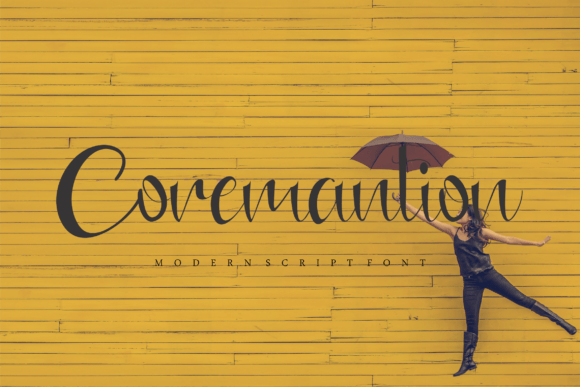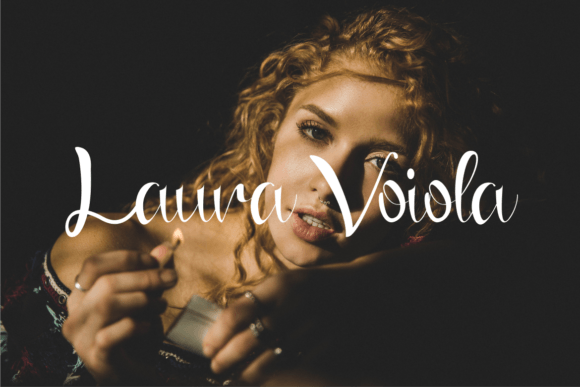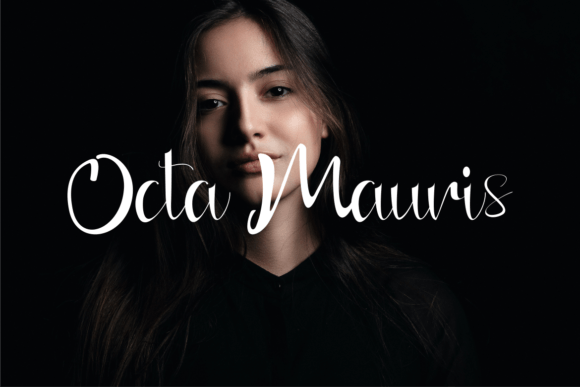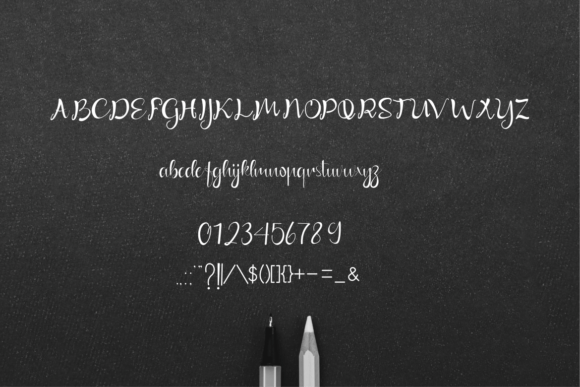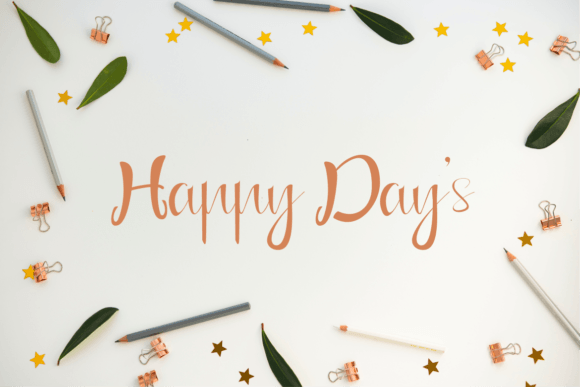
What Is Coremantion Font?
Coremantion Font is a modern handwritten script designed to bring a stylish, personal feel to any creative project. With smooth curves, clean strokes, and a contemporary look, this font effortlessly blends sophistication with approachability. Whether you’re designing something bold, minimal, or artistic, Coremantion delivers a polished finish that stands out.
Its fresh style makes it a versatile choice for designers who value clarity, elegance, and modern typography.
Coremantion is perfect for a wide range of creative applications. For example, it’s ideal for logos and brand identities. The handwritten style gives your brand an authentic, personable feel that resonates with audiences.
Wedding invitations, event stationery, and greeting cards look refined and memorable with Coremantion’s flowing script. Each letter adds warmth and sophistication.
Social media graphics, website headers, and promotional banners instantly look more engaging and contemporary with this stylish script. Your content will feel cohesive and professional.
Product packaging and labels gain a custom, handmade touch that helps them stand out on the shelf.
Even editorial layouts, blog graphics, and marketing materials benefit from Coremantion’s fresh, clean letterforms.
Why Should You Choose Coremantion Font?
One of Coremantion’s best qualities is its readability. Despite its handwritten flow, each letter stays clear and legible at any size. Whether you’re designing a delicate tag or a large headline, your text will look polished and professional.
The font pairs seamlessly with minimalist serif or sans-serif typefaces, giving you full flexibility to create balanced, modern compositions.
Designers love that Coremantion looks beautiful straight out of the box, saving time while ensuring consistent, high-quality results.
Coremantion Font brings freshness, authenticity, and style to every project. Its smooth, flowing strokes create an emotional connection that makes your designs feel personal and engaging.
Even simple layouts gain character and elegance with Coremantion. Whether you’re creating a wedding suite, a logo, or social content, this font elevates your visuals effortlessly.
Using a premium handwritten script also shows your commitment to thoughtful, high-quality design. Clients and customers will appreciate your attention to detail, helping you build trust and stand apart from competitors.
Coremantion Font is more than just a modern script—it’s a versatile design asset that helps you share ideas with clarity, style, and warmth. From branding and invitations to packaging and digital content, this font adapts seamlessly to any project and leaves a lasting impression.